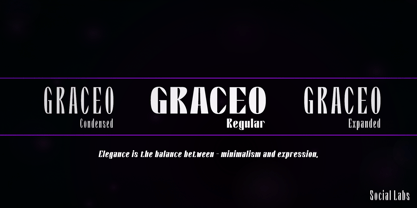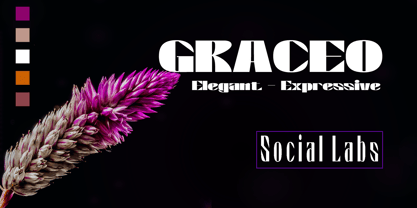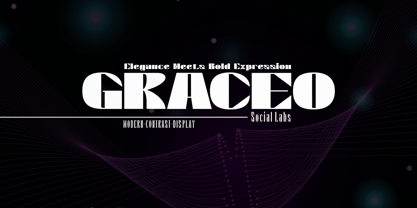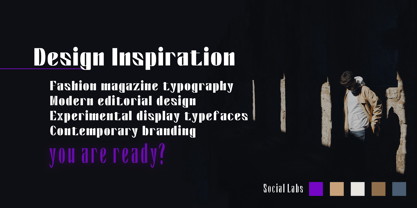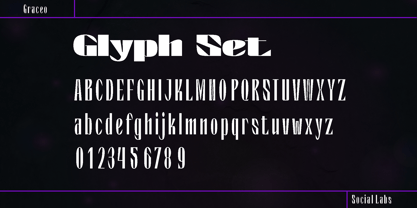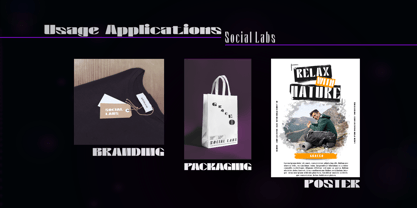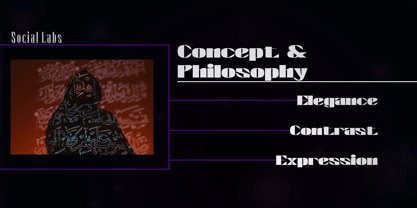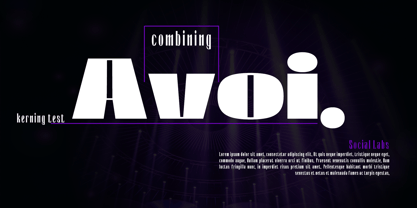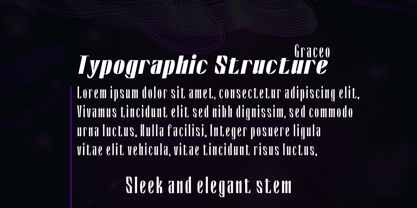
Graceo
by Social Labs
The Graceo Font Family was designed by Muhammad Naufal and published by Social Labs. Graceo contains 38 styles and family package options. More about this family
Graceo is a modern high-contrast display typeface that combines delicate hairline strokes with powerful extra black forms, creating a striking visual balance between elegance and strength; inspired by the meaning of “grace,” it embodies sophistication, harmony, and expressive character, resulting in distinctive letterforms that are refined yet bold, making it ideal for contemporary branding, fashion editorials, headlines, posters, and other designs that require a strong visual identity with a touch of modern elegance
Designers: Muhammad Naufal
Current Foundry: Social Labs